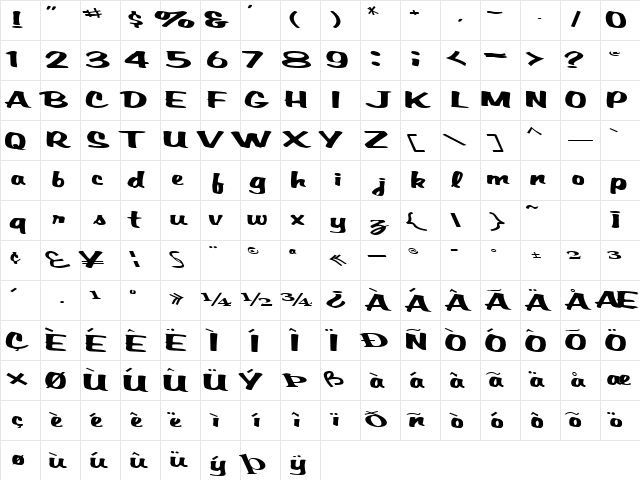
ZenithBay Regular Free Font
ZenithBay Regular
ZenithBay Family
Complete ZenithBay Regular glyph index. Displaying only characters natively supported by ZenithBay Regular font.
Design Context for ZenithBay
ZenithBay is a composed and adaptable typeface that performs quietly and consistently across a wide range of design contexts.